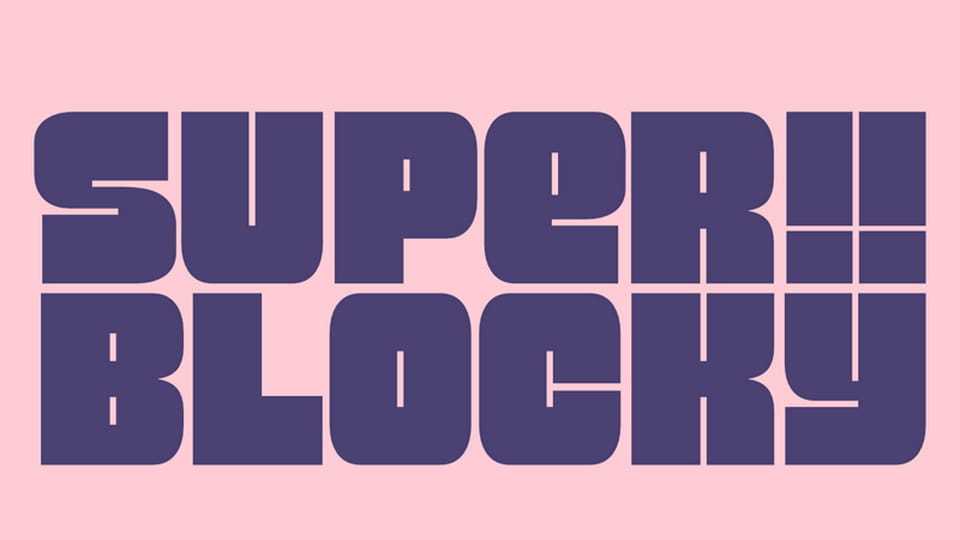
Download Super Blocky font, a heavy geometric display typeface defined by its strong, modular structure and bold presence. Its thick letterforms and squared shapes create a powerful and confident visual style